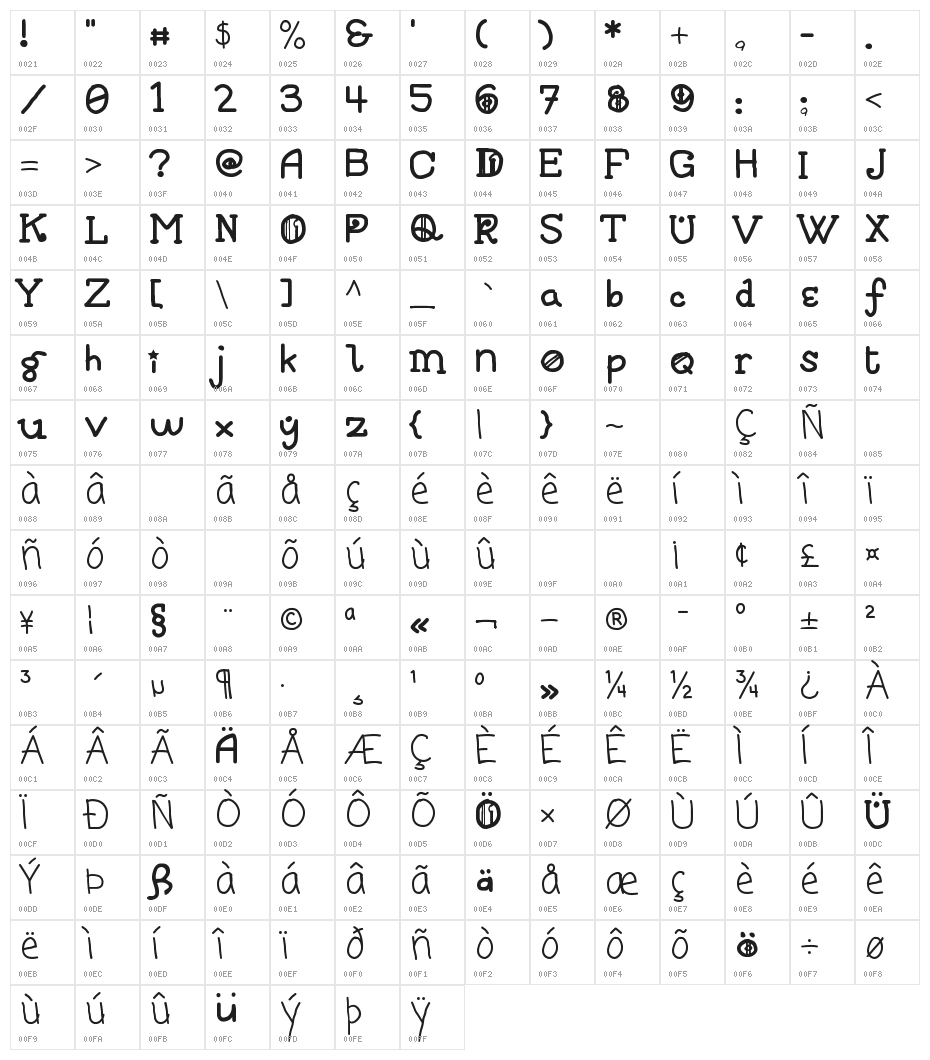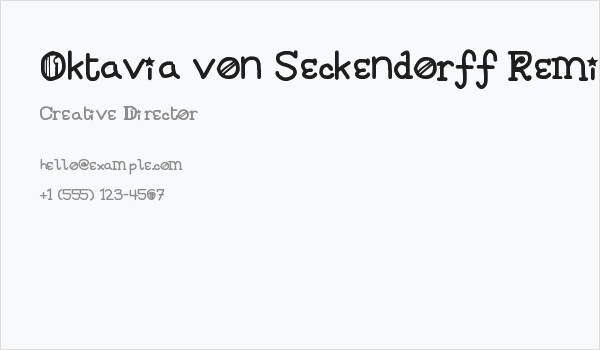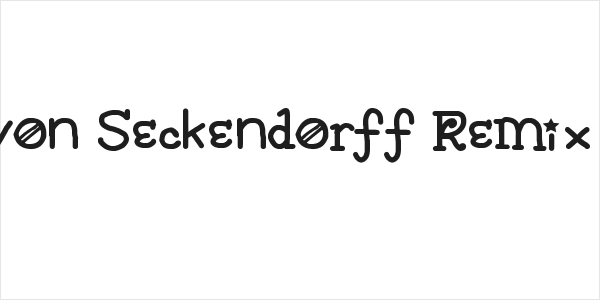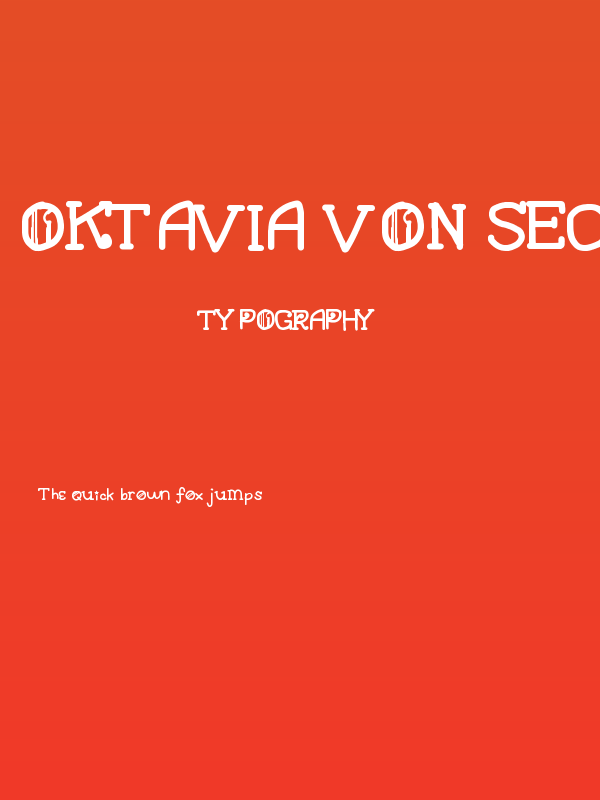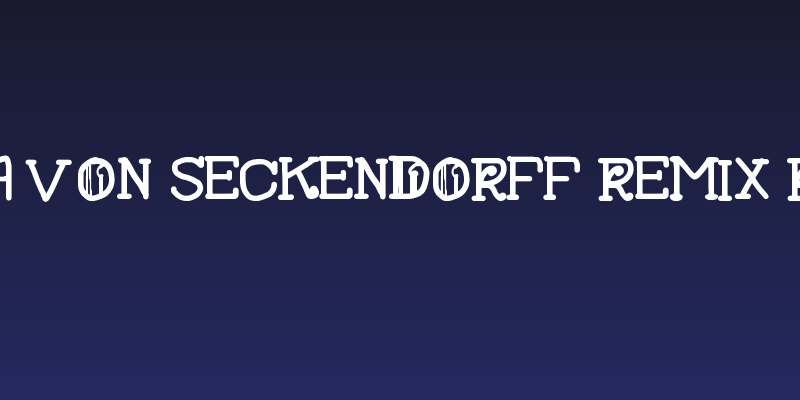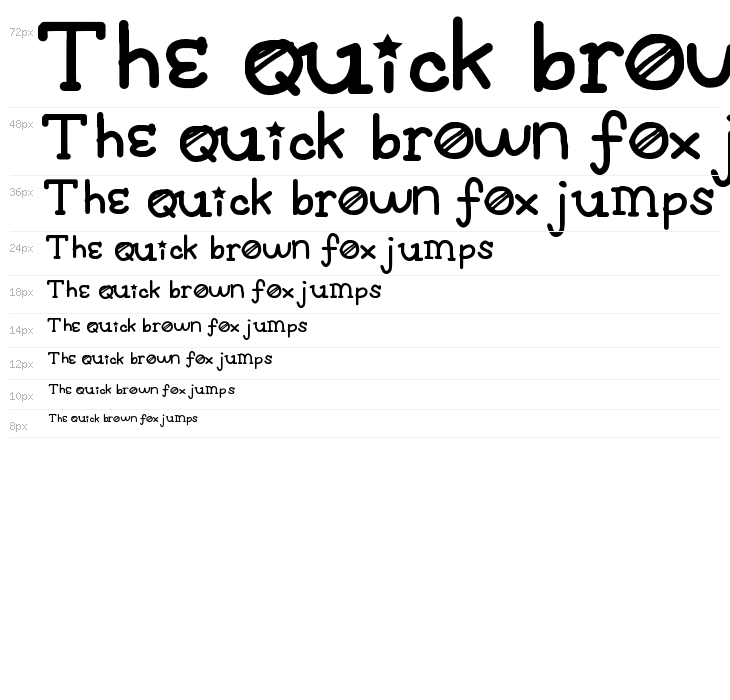
Oktavia von Seckendorff Remix Regular Font
Oktavia von Seckendorff Remix Regular Description
This font features a playful and whimsical design with a unique blend of rounded and angular elements. The uppercase letters are bold and distinct, with some characters incorporating decorative elements like stars and stripes. The lowercase letters maintain a consistent style, with a slightly more casual feel. Numbers and special characters are creatively designed, adding to the font's overall quirky and artistic appeal. The font's style is reminiscent of hand-drawn or doodle-like aesthetics, making it stand out with its unconventional and artistic flair.
| Proposed Projects | Ideal for children's books, creative posters, playful branding, and artistic projects. |